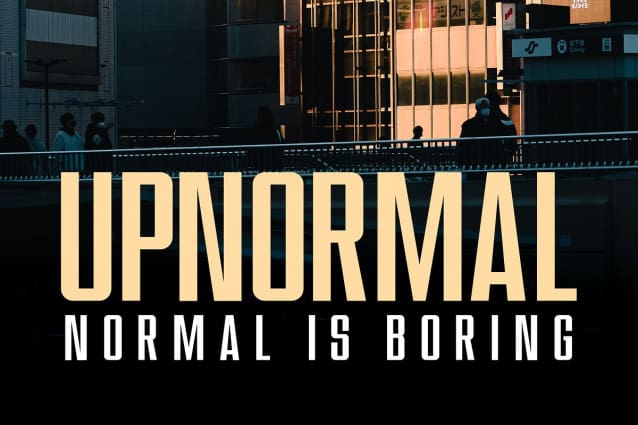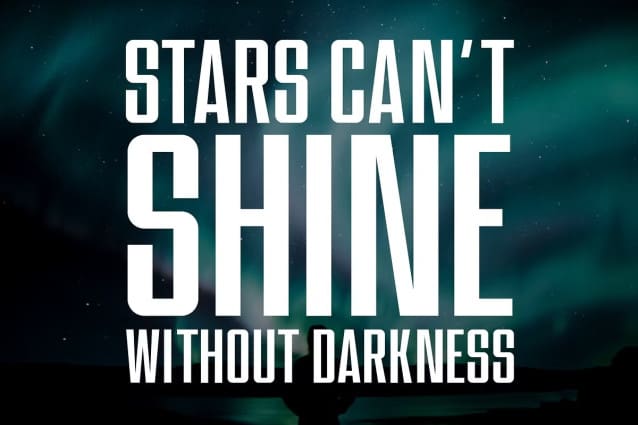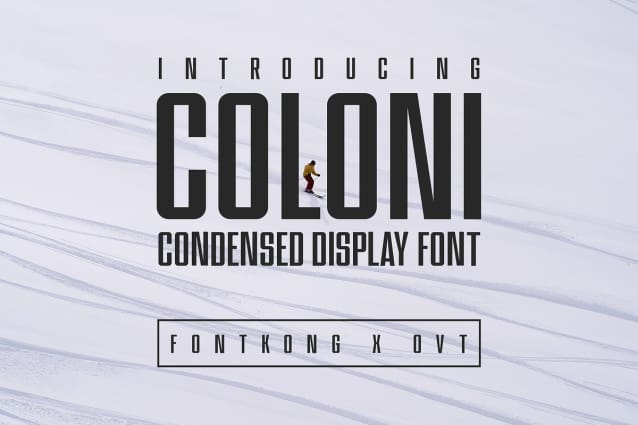
Coloni Font
Coloni Font, a condensed display font that combines compact elegance with bold visual impact. Perfect for designers, advertisers, and creatives looking to maximize space without sacrificing style, Coloni offers a sleek and sophisticated solution for a variety of design projects.
Ideal for posters, headlines, logos, and branding materials, Coloni’s condensed form ensures your text stands out while maintaining a clean and polished look. Each character is meticulously designed to provide clarity and aesthetic appeal, making it perfect for projects that demand attention and readability.
The Coloni font includes a full set of uppercase and lowercase letters, numbers, and punctuation marks, offering versatility and flexibility for various design applications. Whether you’re crafting striking advertisements or cohesive brand identities, Coloni enhances your work with its refined and space-efficient typography.
Make a bold statement with Coloni, a condensed display font that brings compact elegance and modern style to every design.